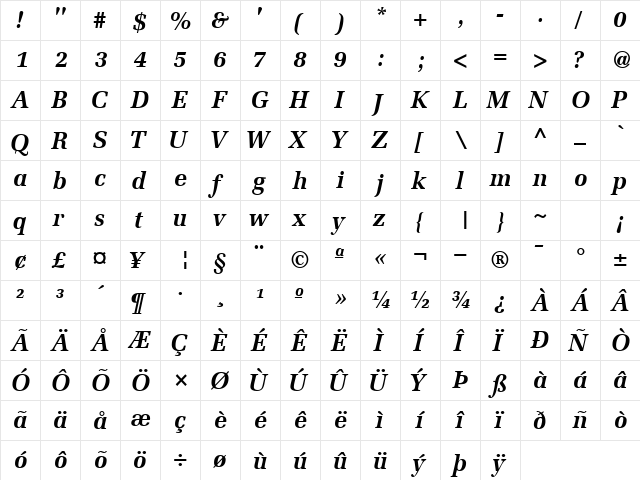
ProtocolSSK BoldItalic
Design Context for ProtocolSSK Typeface
ProtocolSSK offers clean, dependable letterforms without strong stylistic allegiance, making it a practical choice for designers who need flexibility. The slanted form adds forward momentum and visual energy. The heavy weight commands attention and anchors typographic hierarchies.
Pro Tip: Use ProtocolSSK for emphasis, pull quotes, and subheadings where its slanted energy can add rhythm to the layout.